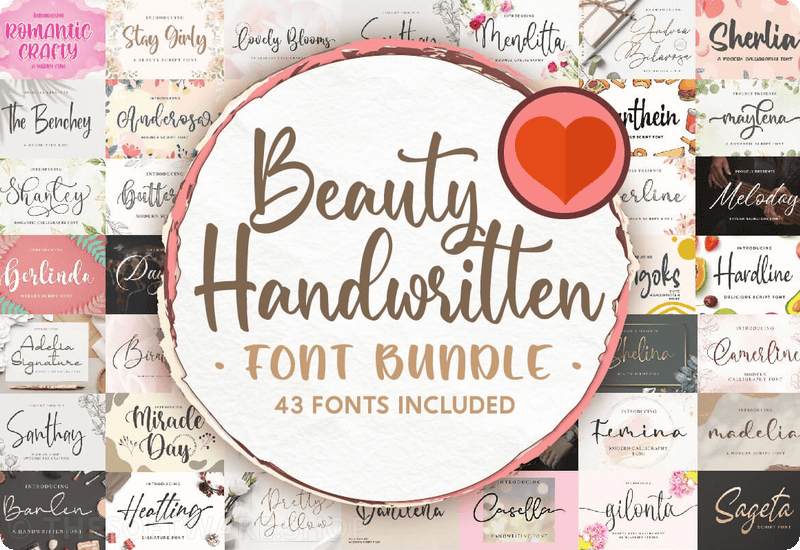
43 Exquisite Handwritten Fonts
Experience the enchantment of the Get Beauty Handwritten Font Bundle, showcasing an astonishing array of 43 top-tier fonts valued at $596, now accessible for FREE. Whether you’re designing wedding invitations, crafting logos, or infusing a distinctive flair into your blog, these fonts present boundless opportunities.
- Gilonta Script & Handwritten Font
- Heatting Script & Handwritten Font
- Camerline Script & Handwritten Font
- Pretty Yellow Script & Handwritten Font
- Mangoks Script & Handwritten Font
- Palegina Script & Handwritten Font
- Danilena Script & Handwritten Font
- Egindal Gindul Script & Handwritten Font
- Berlinda Script & Handwritten Font
- Denadia Script & Handwritten Font
- Famella Script & Handwritten Font
- Menditta Script & Handwritten Font
Each font within this bundle, such as the Dayland Script and Adelia Signature Script, incorporates exquisite swashes and ligatures, offering flexibility and sophistication to your projects. Reinvigorate your DIY projects with this exceptional assortment of genuine fonts, perfect for any occasion.
Perfect for Professional and Personal Use
Boost your branding and design ventures with fonts that radiate professionalism and allure. The Get Beauty Handwritten Font Bundle is tailor-made for producing attention-grabbing stationery, captivating book covers, and refined magazine layouts.
Fonts like the Shelina Script and the Meloday Script bring a polished touch that elevates the legibility and aesthetic appeal of your work. With a commercial license included, you can confidently integrate these fonts into client projects, ensuring that your designs stand out as unique and unforgettable.
Ideal for Social Media and Digital Content
Amplify your online presence with fonts that captivate attention and convey your style. The Get Beauty Handwritten Font Bundle features fonts like the Lovely Blooms Script and the Miracle Day Script, perfect for Instagram posts, blog graphics, and digital marketing materials.
These fonts will transform any creative concept into a genuine work of art, aiding you in constructing a cohesive and appealing brand identity. With this versatile bundle, your digital content will radiate brilliance, captivating your audience and enhancing your online visibility.